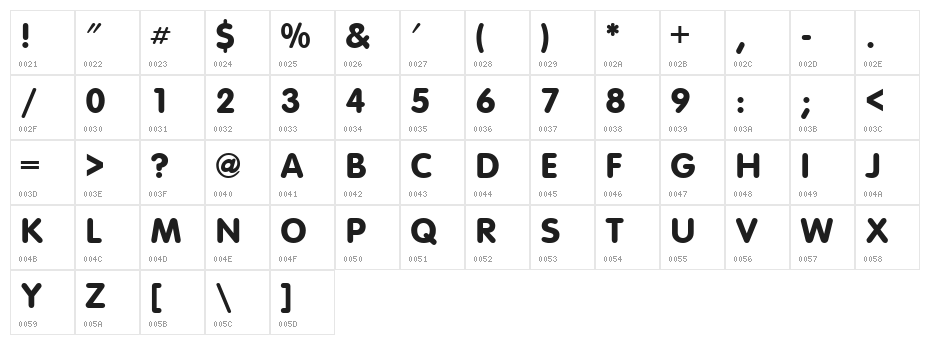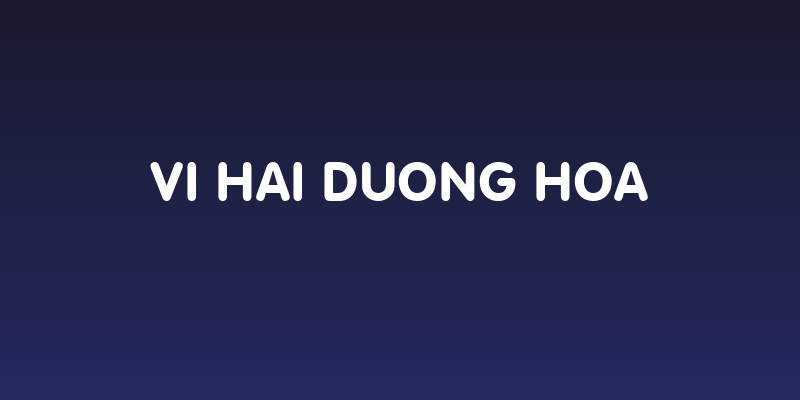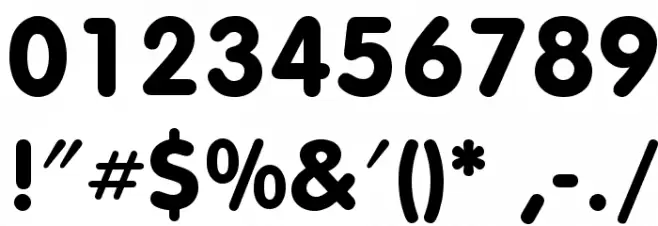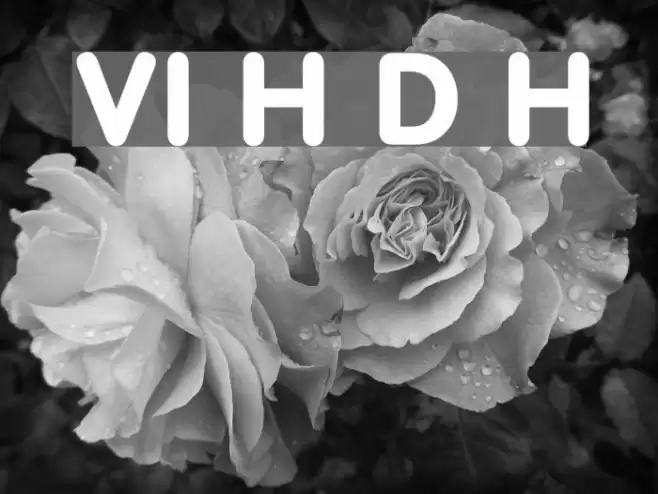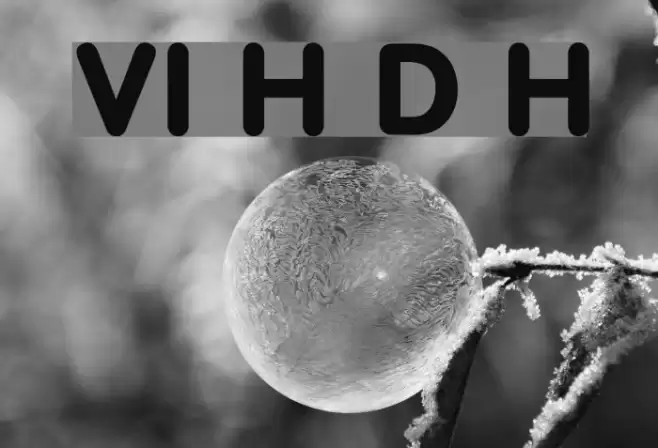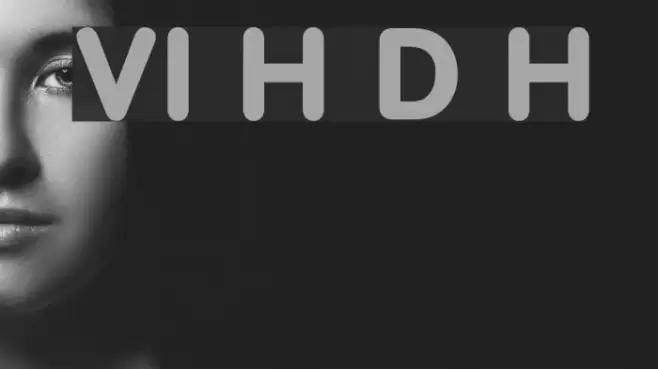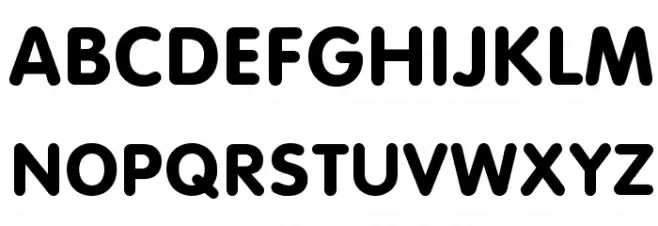
VI Hai Duong Hoa Font
VI Hai Duong Hoa Description
This font features bold, rounded characters with a modern and friendly appearance. The letters are evenly spaced, providing a clean and approachable look. The rounded edges give it a soft, welcoming feel, making it suitable for a variety of design projects. The numerals and special characters maintain the same rounded style, ensuring consistency across all text elements. This font's simplicity and clarity make it highly readable, even at smaller sizes, while its boldness ensures it stands out in larger displays.
| Use Case | Headlines, Logos, Digital Interfaces |
| Proposed Projects | Ideal for branding, advertising, children's books, and digital interfaces. |